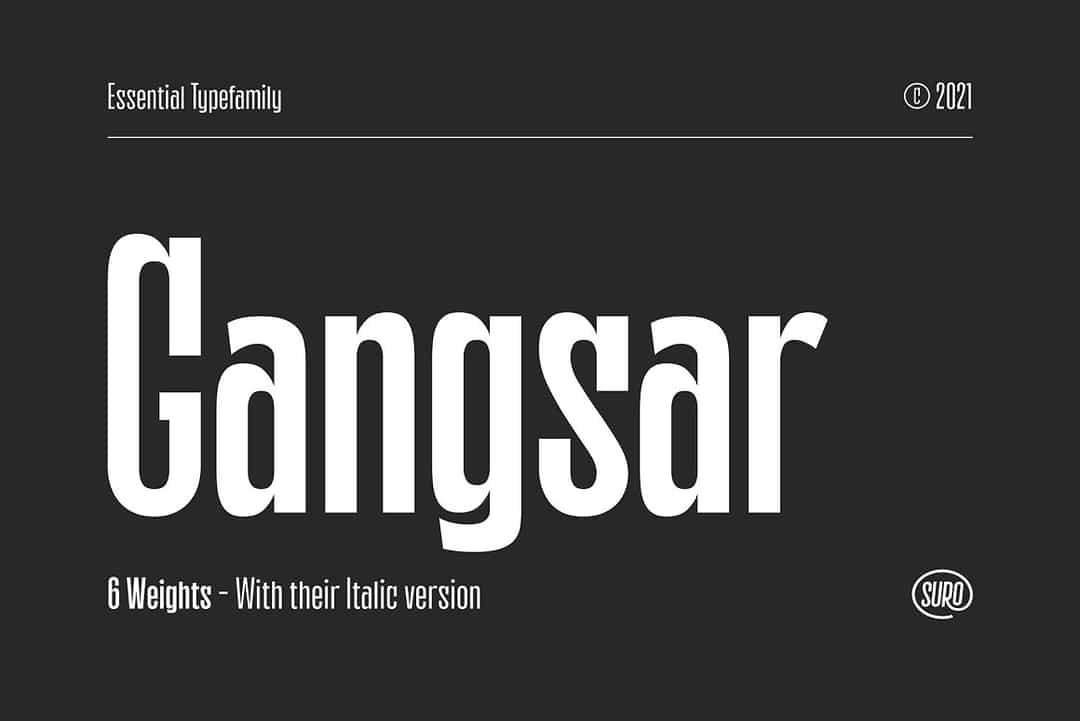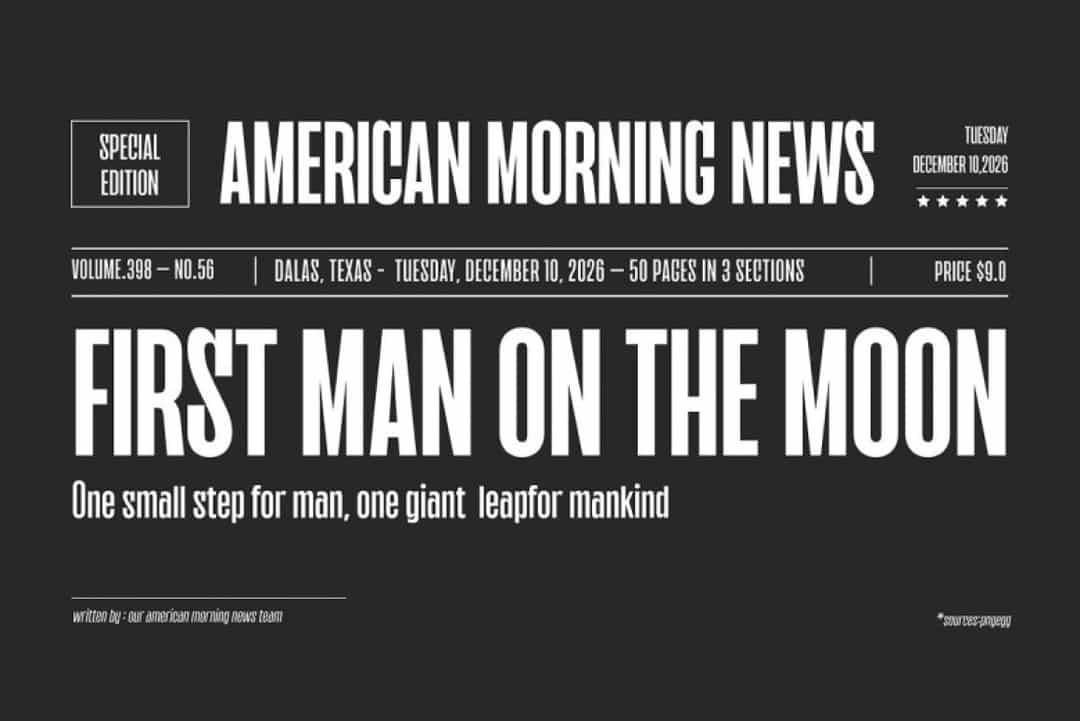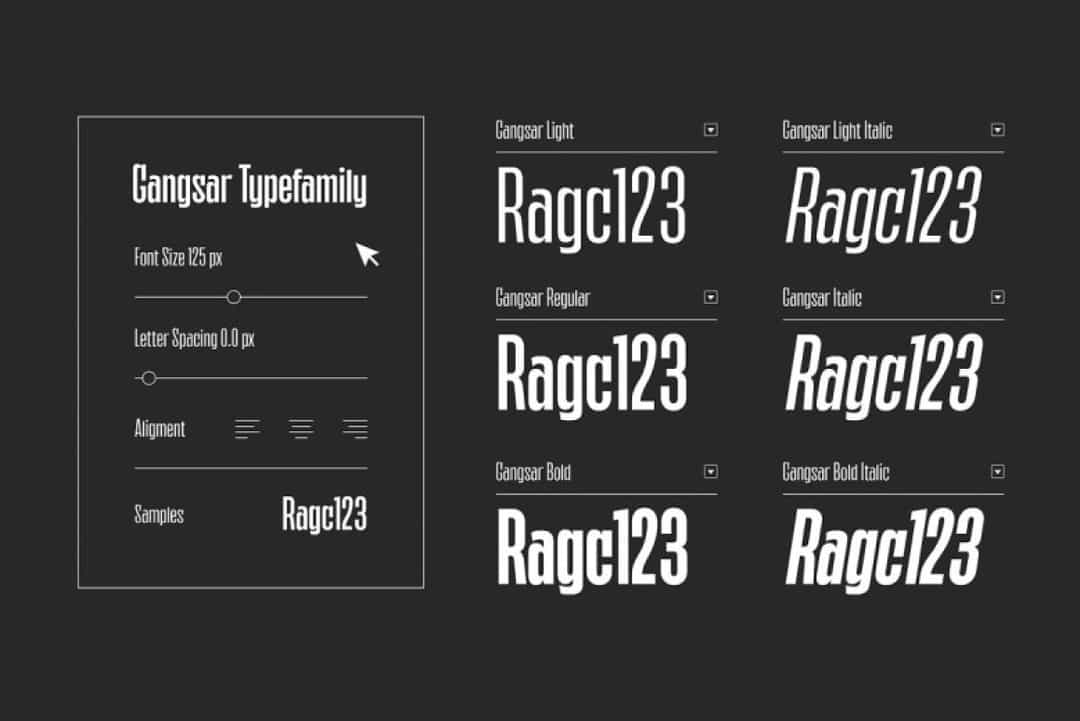
Gangsar is an elegant Condensed typeface inspired by Enge Hermes (1935). Featuring 6 weights – including an italic version with sharp edges and proportional contrast – Gangsar makes an excellent choice for posters, branding magazines, websites and mobile Apps alike.